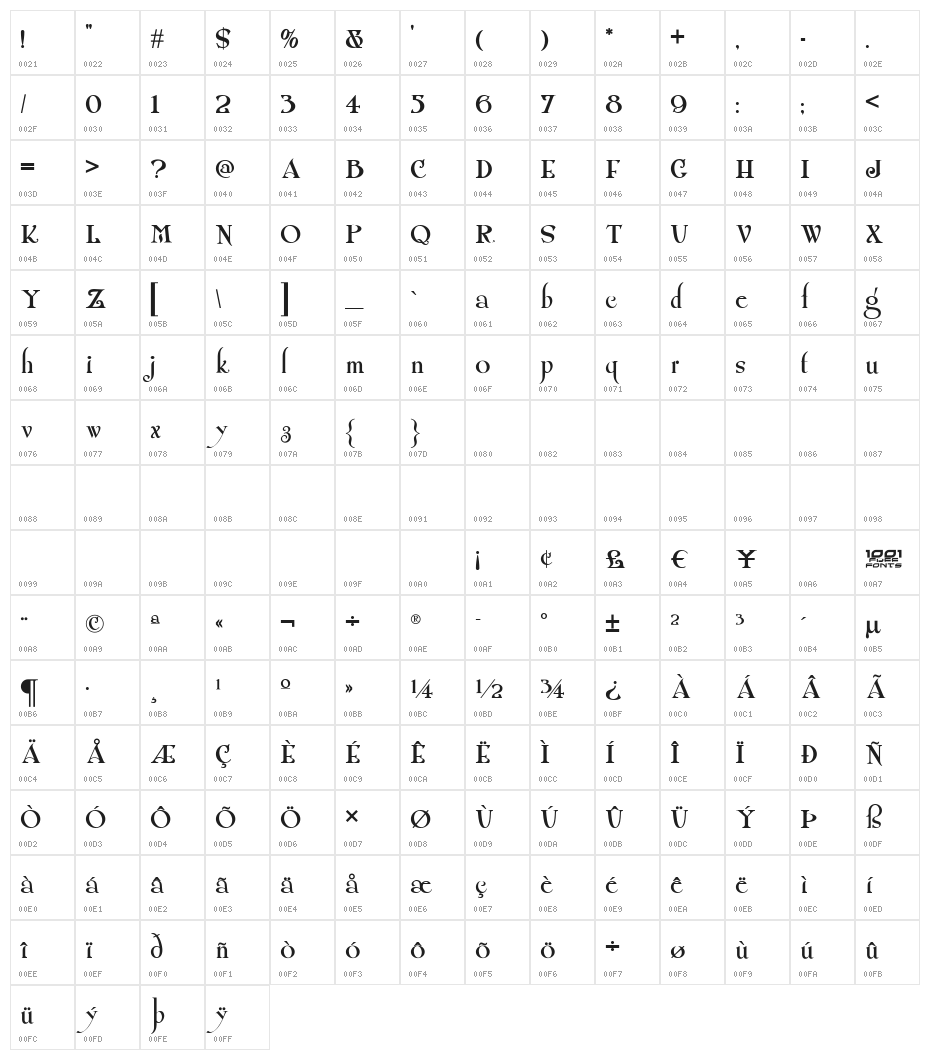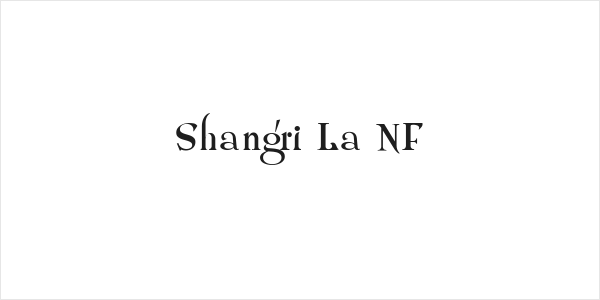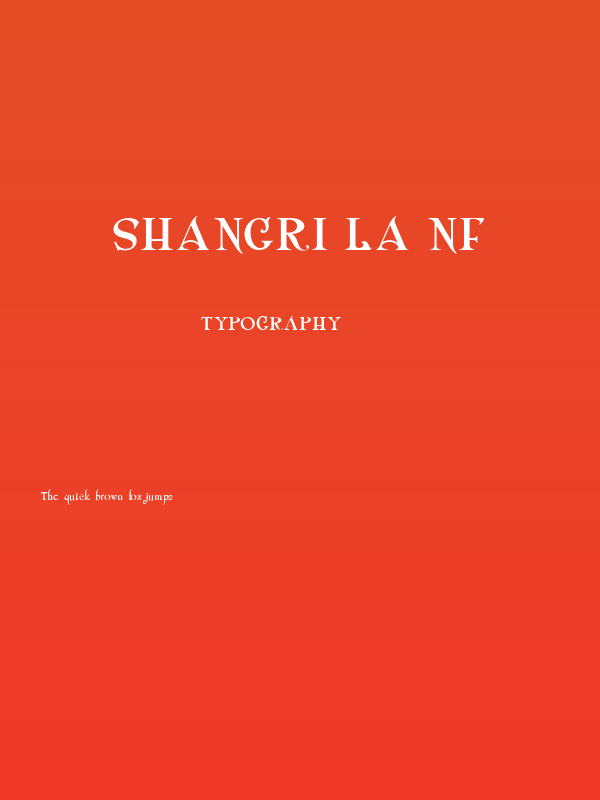
Shangri La NF Font
Shangri La NF Description
This font features a unique blend of classic and whimsical elements, characterized by its decorative serifs and playful curves. The uppercase letters exhibit a bold presence with distinct, ornate flourishes, while the lowercase letters maintain a more subtle yet equally charming style. Numbers and special characters follow suit, offering a cohesive aesthetic throughout. The font's artistic flair makes it stand out, with each character displaying a sense of movement and elegance. Its design is both eye-catching and versatile, suitable for a variety of creative applications.
| Proposed Projects | Ideal for use in branding, invitations, posters, and any project requiring a touch of elegance and creativity. |